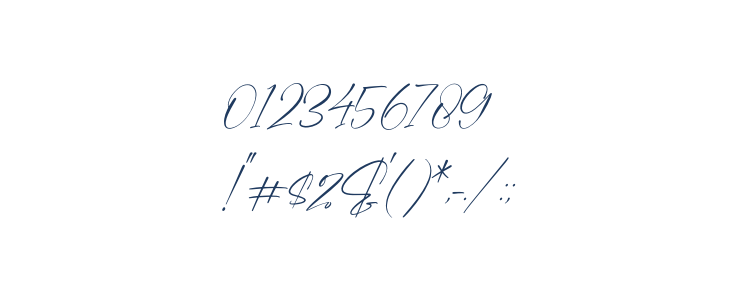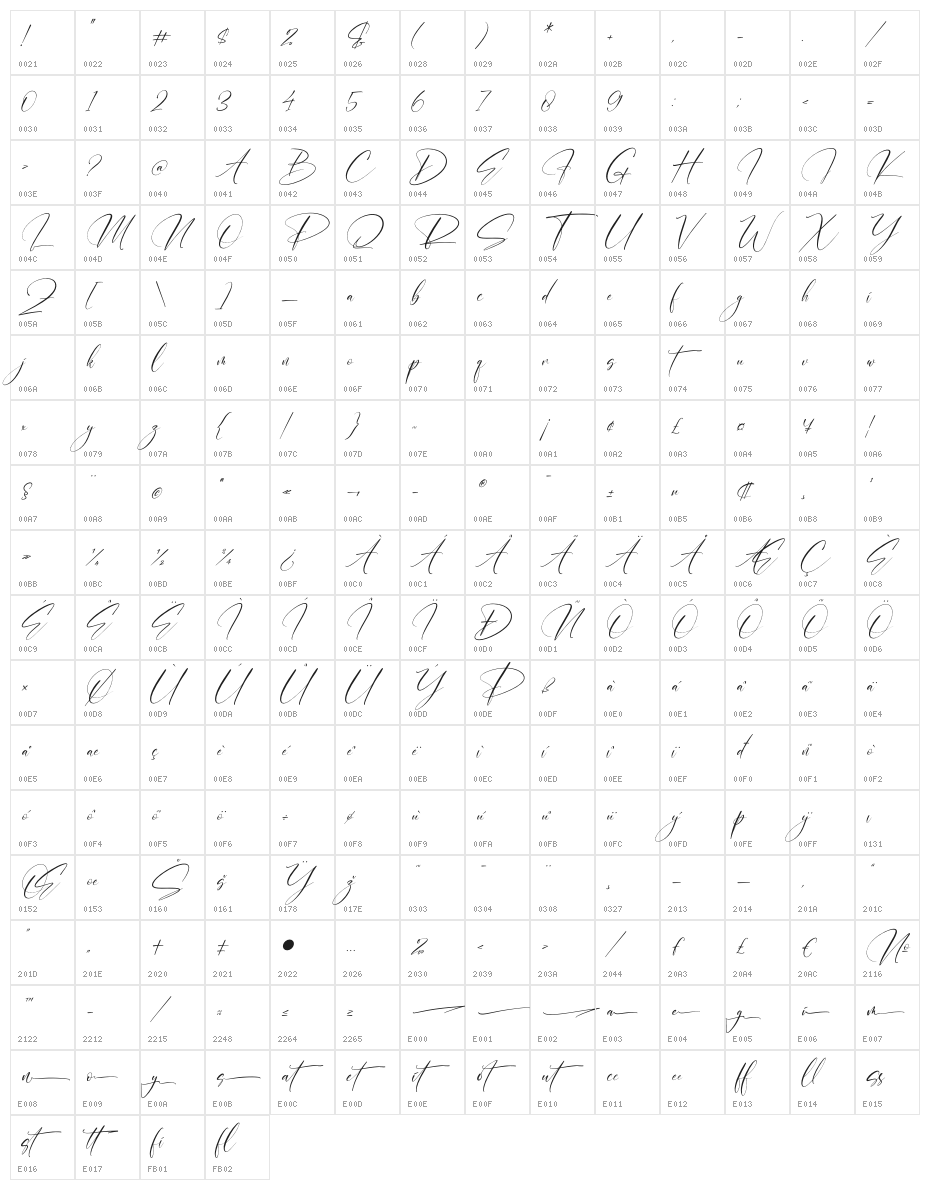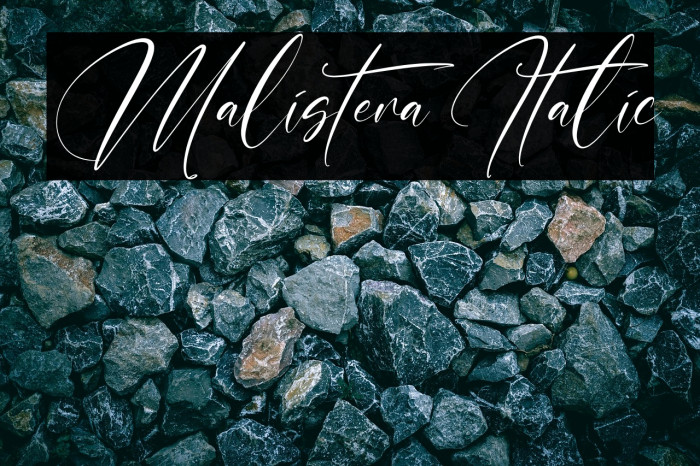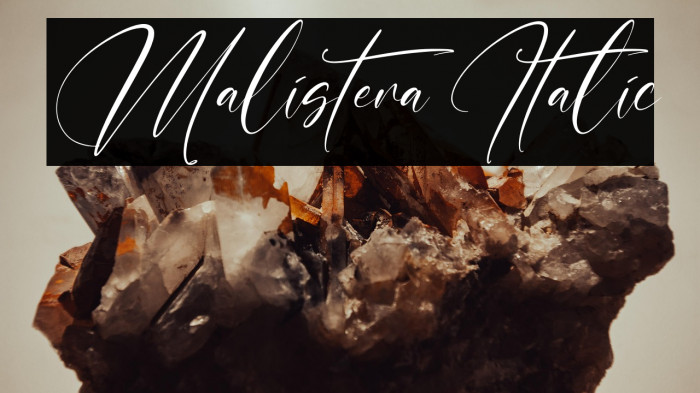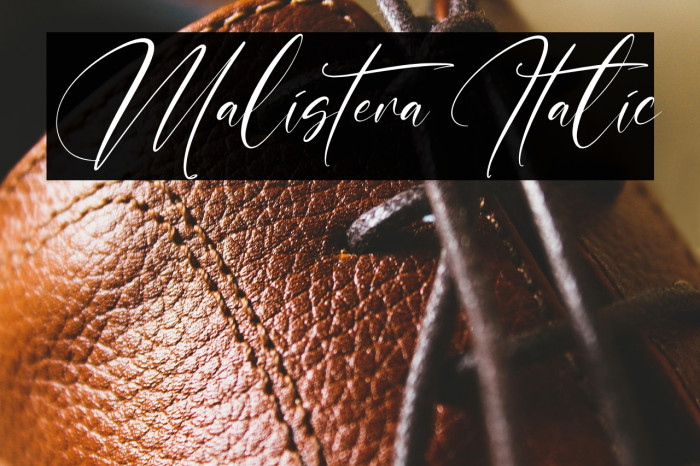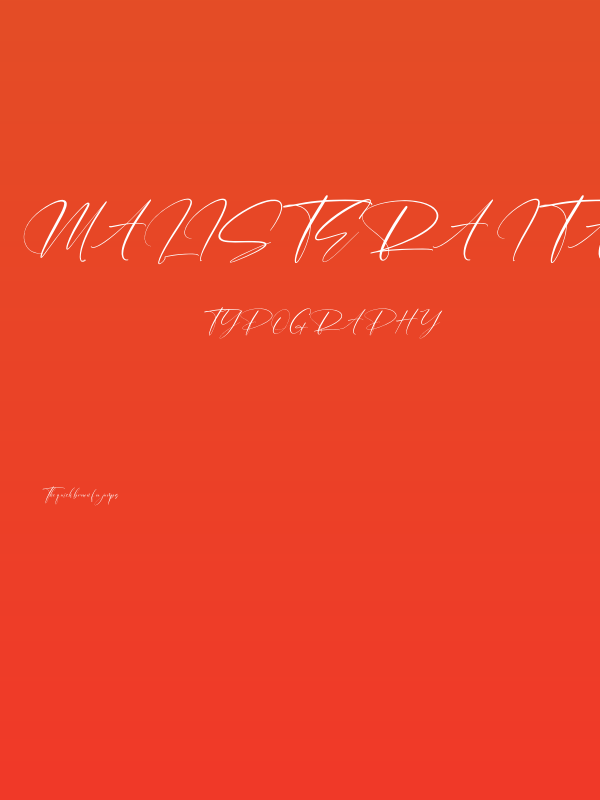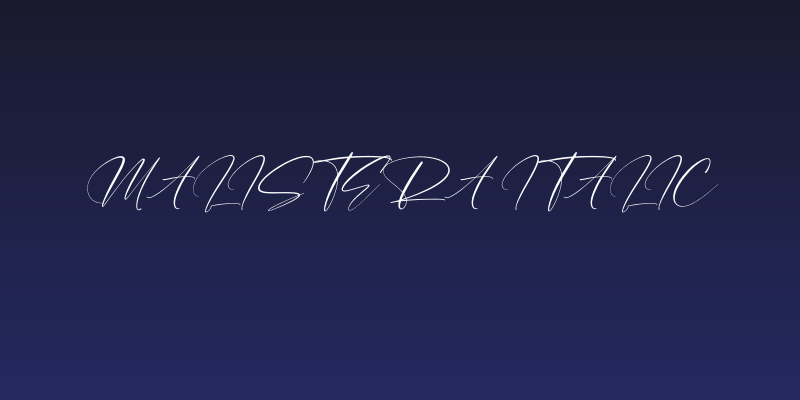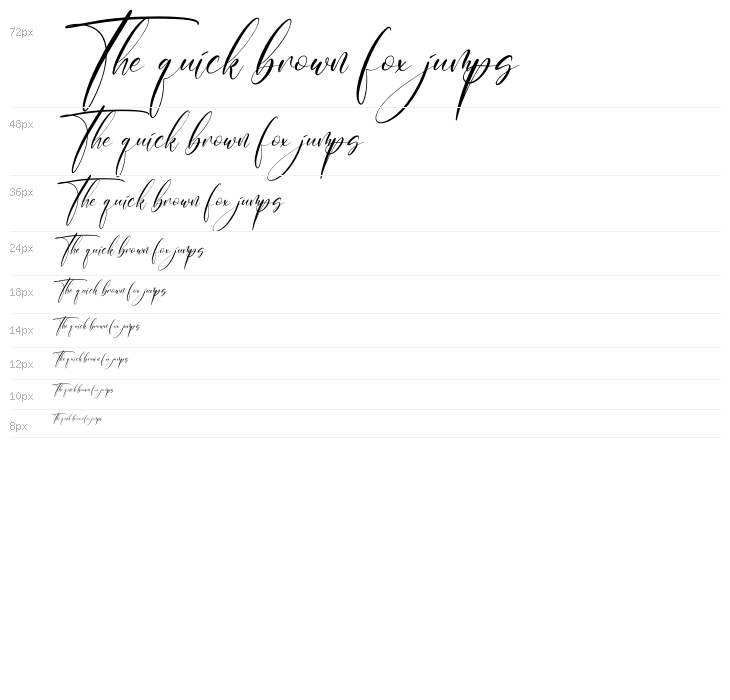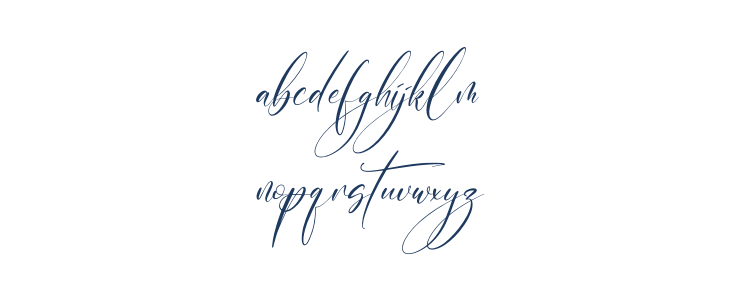
Malistera Italic Font
Malistera Italic Description
This font exudes elegance and sophistication with its flowing, cursive style. The letters are intricately designed with a high degree of slant, giving it a dynamic and fluid appearance. The strokes are delicate and vary in thickness, adding a sense of movement and grace. The uppercase letters are grand and sweeping, while the lowercase letters maintain a consistent rhythm and balance. Numbers and special characters are crafted with the same attention to detail, ensuring a cohesive look across all elements. This font is ideal for projects that require a touch of class and refinement.